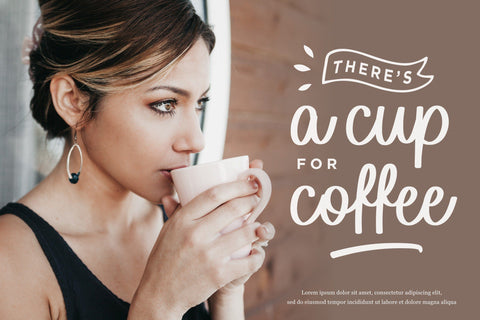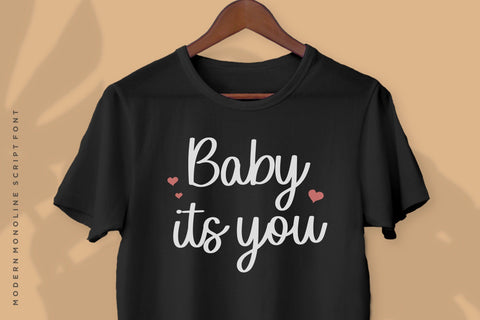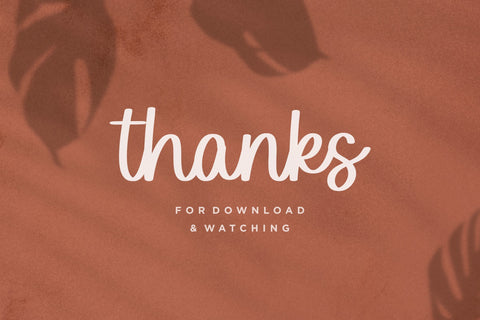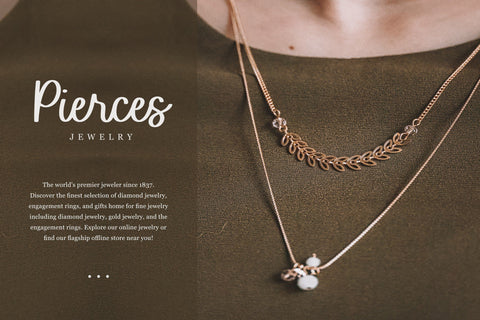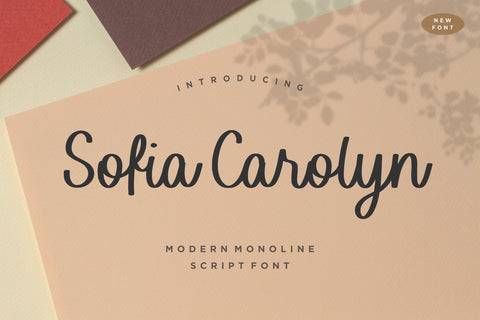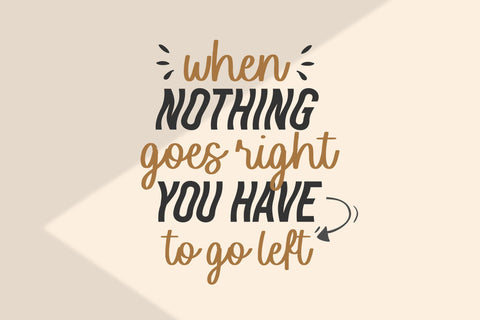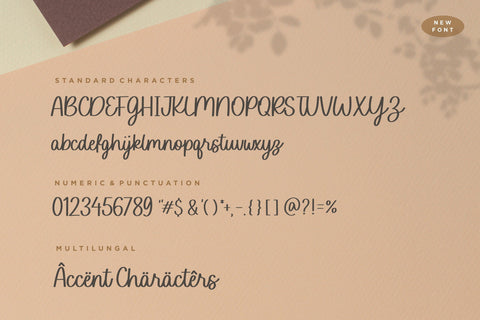
Sofia Carolyn Modern Monoline Script Font
Proudly Present, Sofia Carolyn Font.
Sofia Carolyn is a Modern Monoline Script Font.
Sofia Carolyn is a delicate, elegant and flowing handwritten font. It has beautiful and well balanced characters and as a result, it matches a wide pool of designs. Fall in love with its incredibly versatile style and use it to create spectacular designs!